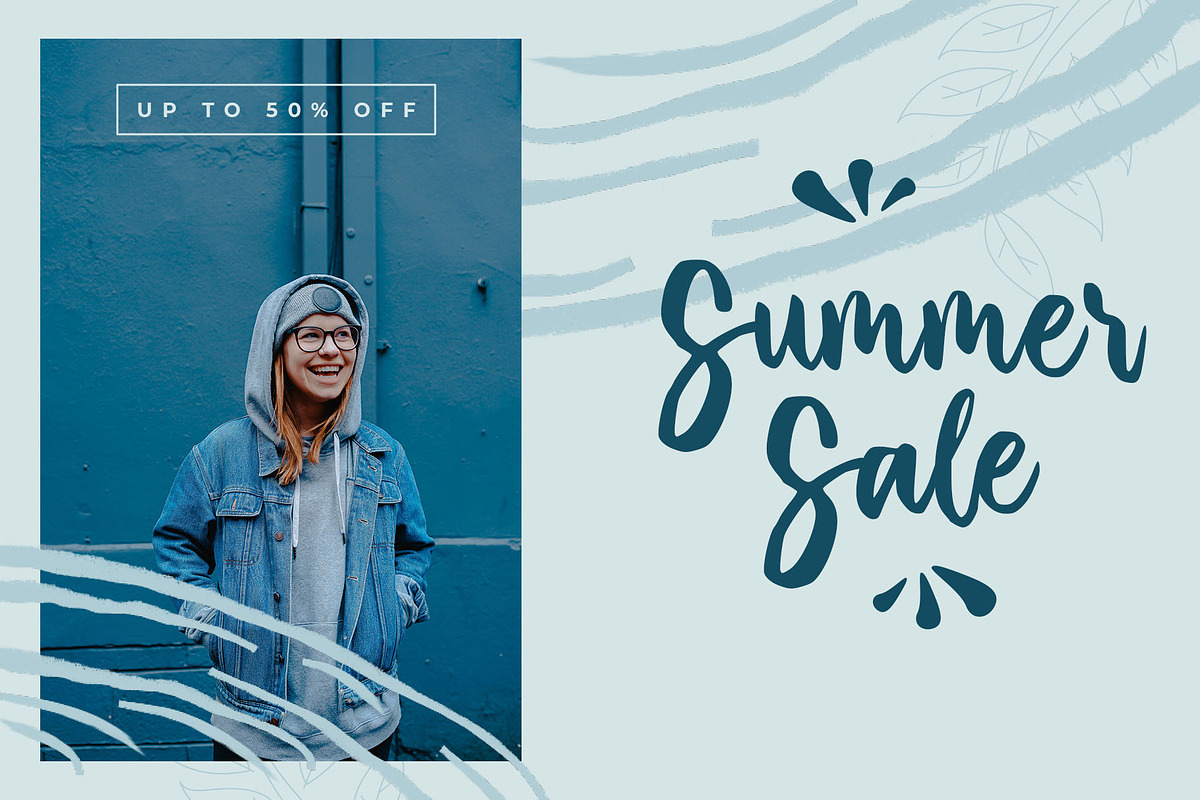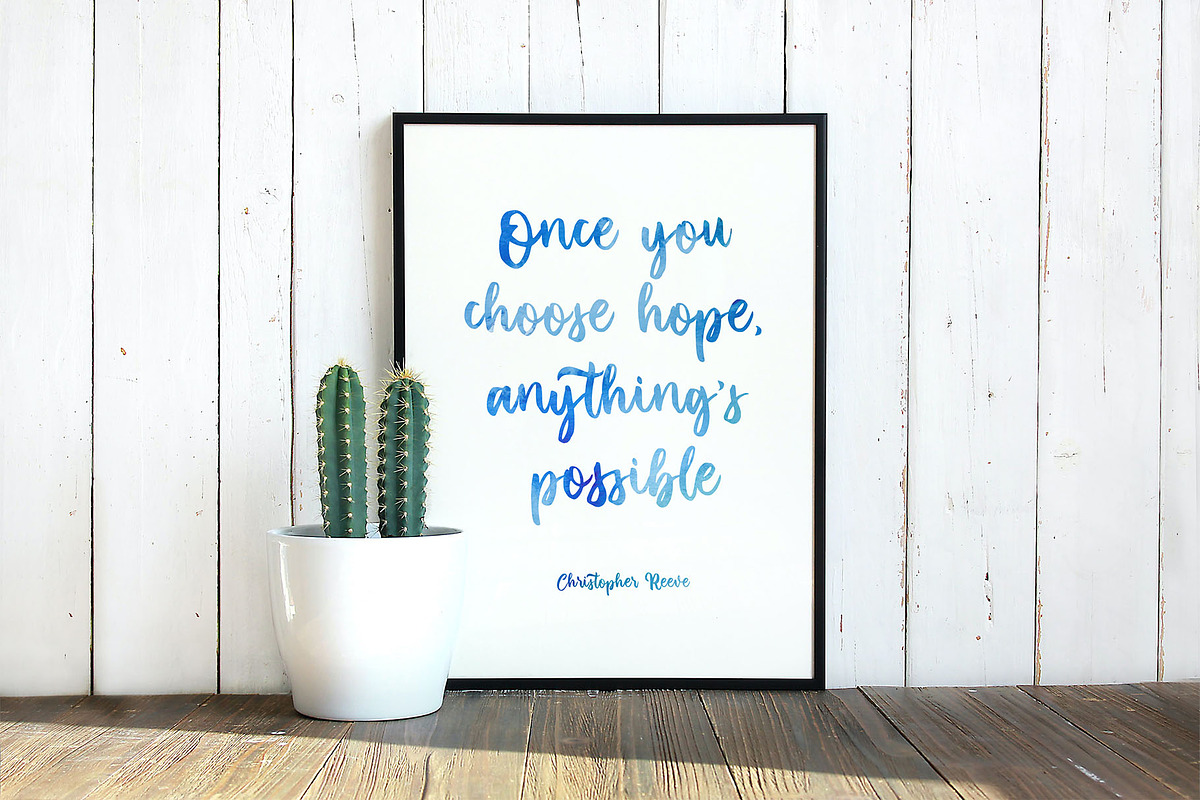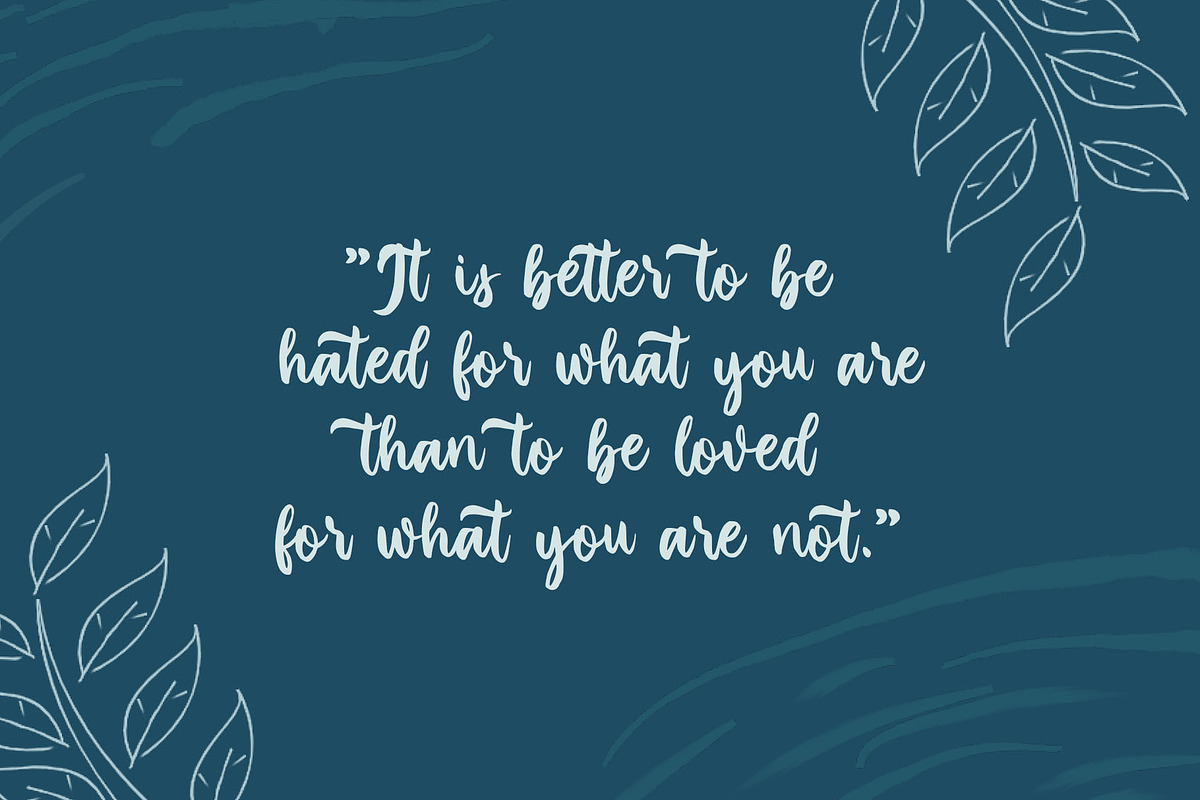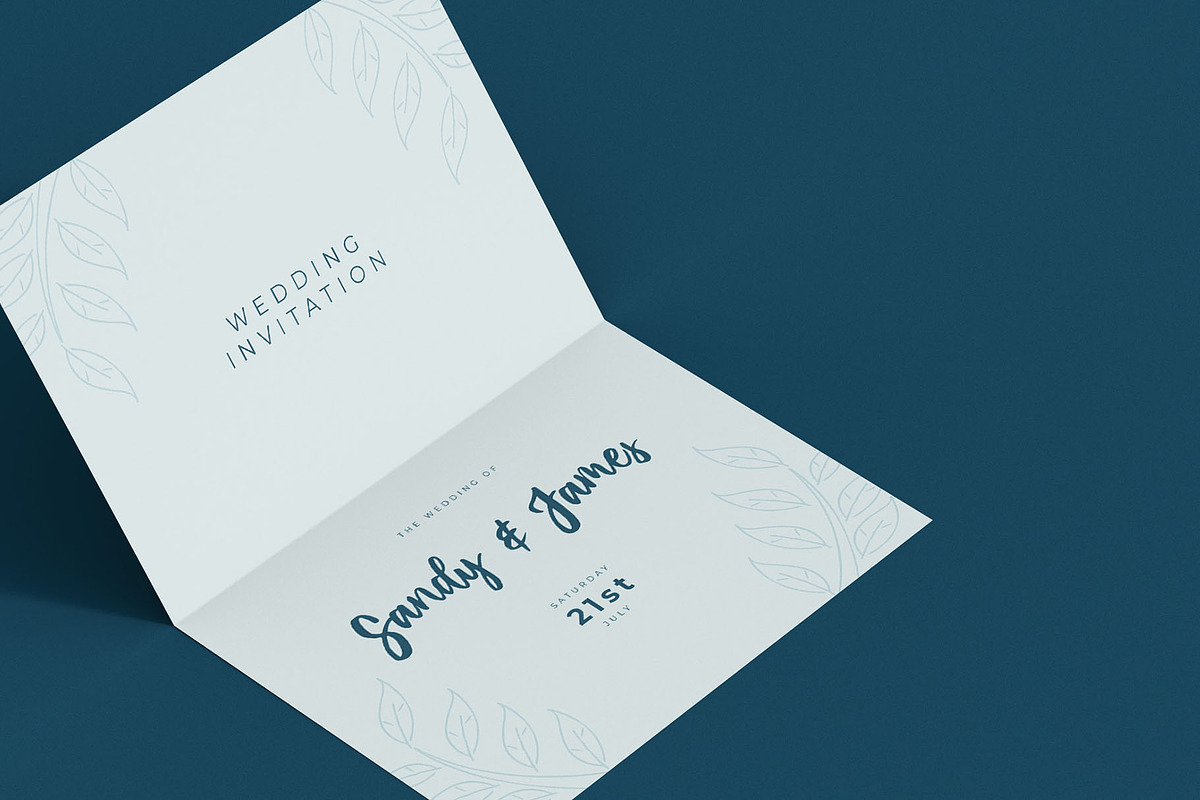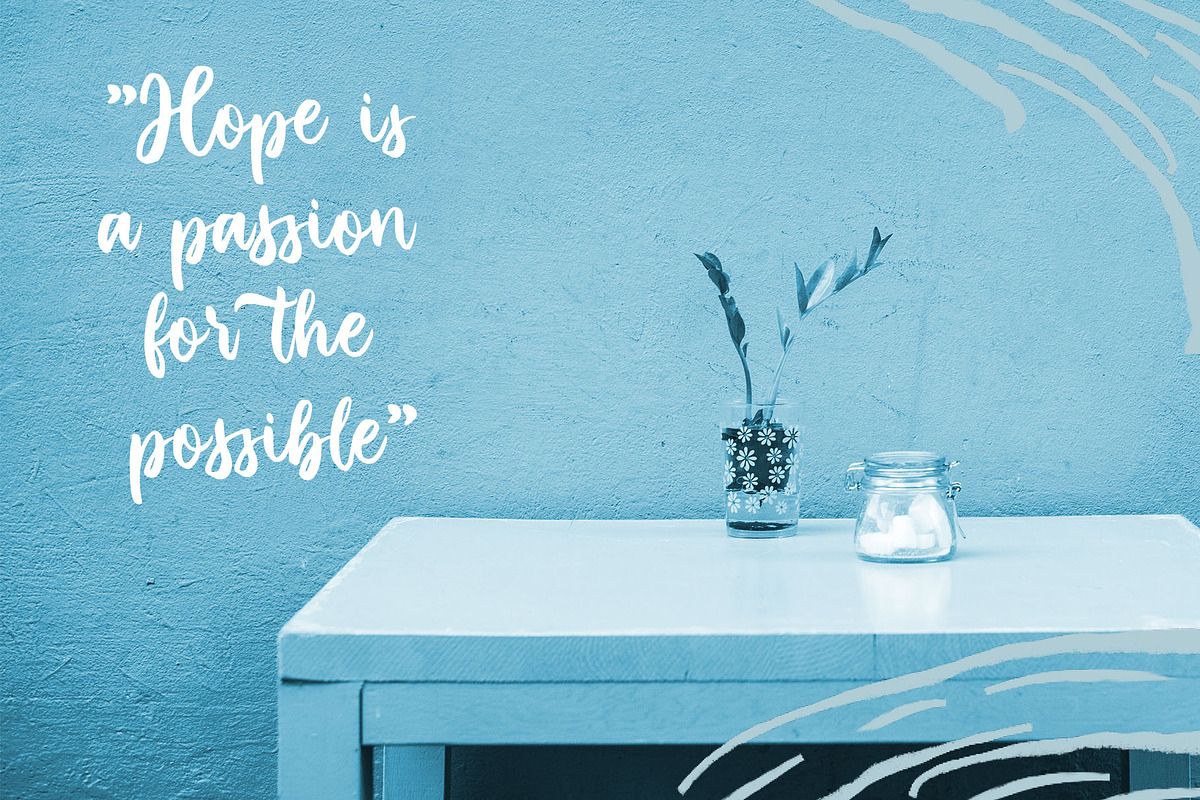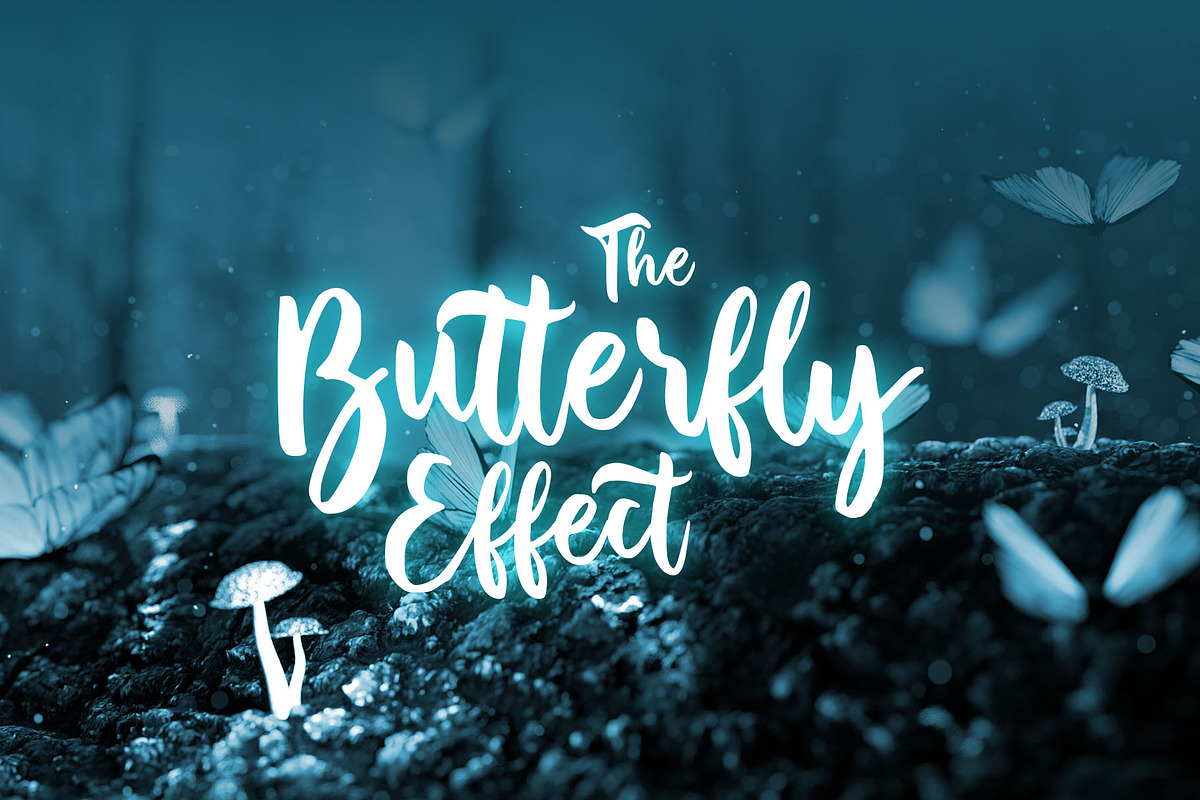
Britis | Script Font
Britis is a beautiful script font, this font looks natural, elegant and perfect for any extraordinary project. Britis is suitable for various products such as invitations, product packaging, quotes, product design, crafter, labels, photography, watermarks, logos & branding. Everything can be accessed using software that supports Opentype, such as Adobe Indesign, Adobe CS Illustrator, Adobe Photoshop CC, and Corel Draw.
Britis | Script Font by sancreastd. fits naturally into Branding, posters, packaging, typography.